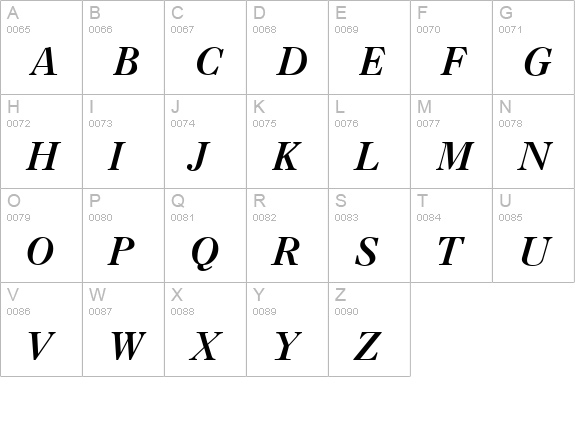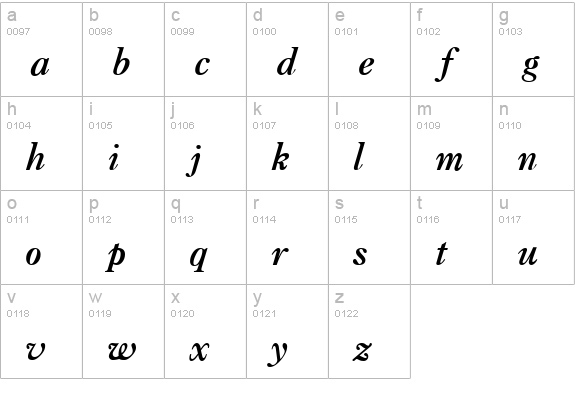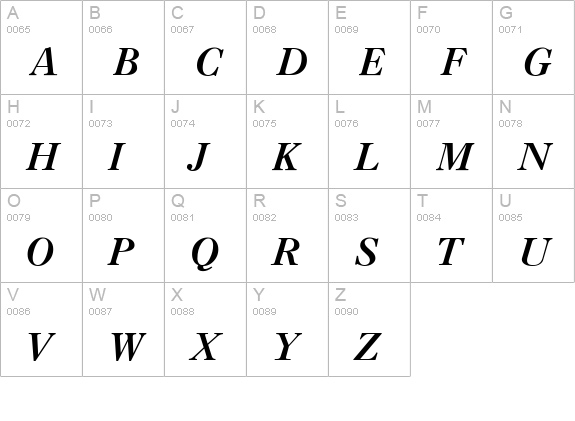
Casque Bold Italic Font Details
Casque Bold Italic is a strong, high-contrast, italic variant in the Casque typeface family \xE2\x80\x94 well suited to headlines, attention-grabbing titles, and strong calls-to-action.
Casque Bold Italic is a striking and dynamic font that exudes confidence and modernity. Its bold and italicized design makes it perfect for creating eye-catching headlines and attention-grabbing text. The sleek curves and sharp angles of this font give it a sense of sophistication and elegance. What sets Casque Bold Italic apart is not only its stylish appearance but also the fact that it is available for free download at FontsMarket.com. This means that you can easily access and use this font for all your design projects without any cost. Whether you're designing a poster, website, or branding materials, Casque Bold Italic will add a touch of flair and professionalism to your work. With its bold presence and italicized flair, Casque Bold Italic is sure to make a statement in any design project. Download it for free today and elevate your designs with this versatile and impactful font.